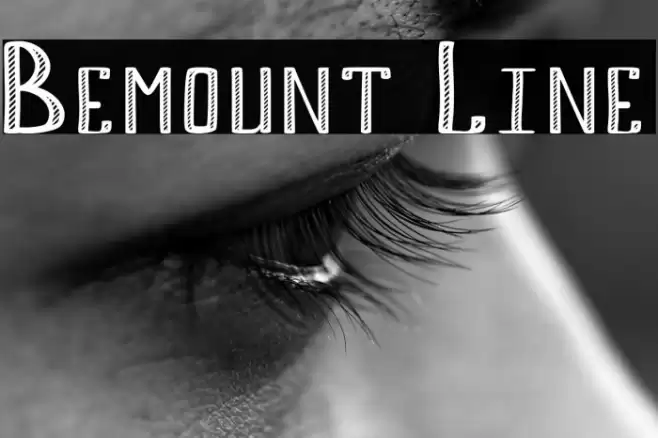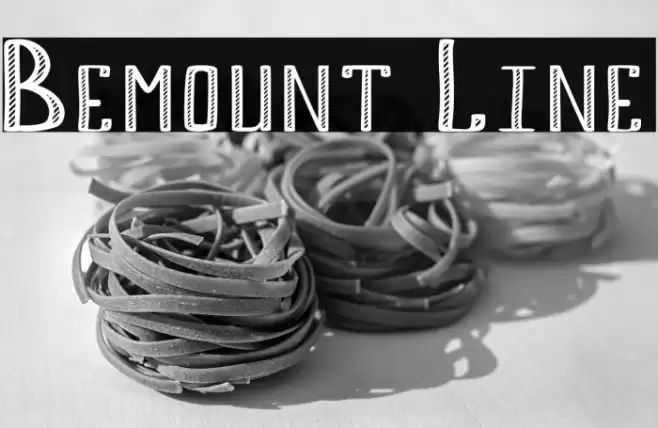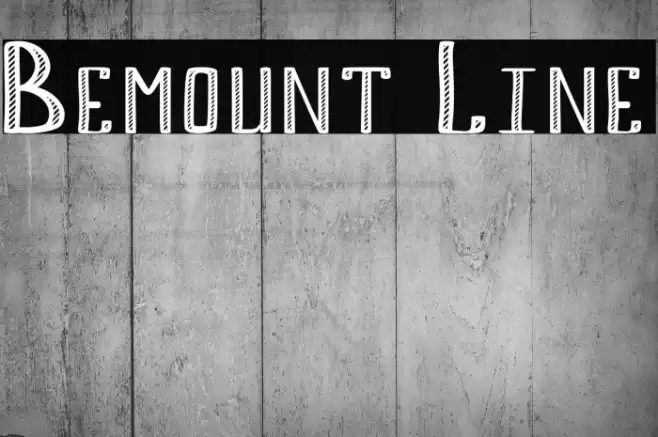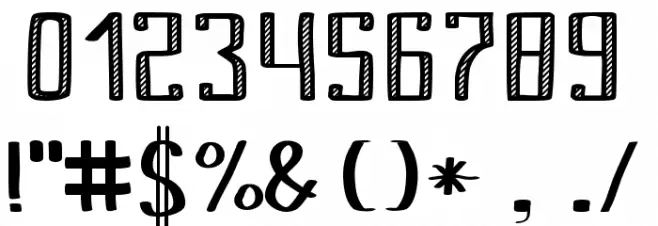
Bemount Line Font
Bemount Line Description
This font features a unique and playful design with a hand-drawn aesthetic. Each character is outlined with a bold stroke and filled with diagonal lines, giving it a textured appearance. The uppercase and lowercase letters maintain a consistent style, with slightly rounded edges and a uniform height. The numbers and special characters follow the same design principles, ensuring a cohesive look across all elements. This font's distinctive style makes it stand out, offering a creative and artistic touch to any project.
A playful, hand-drawn font with bold outlines and textured fills from Kids fonts.